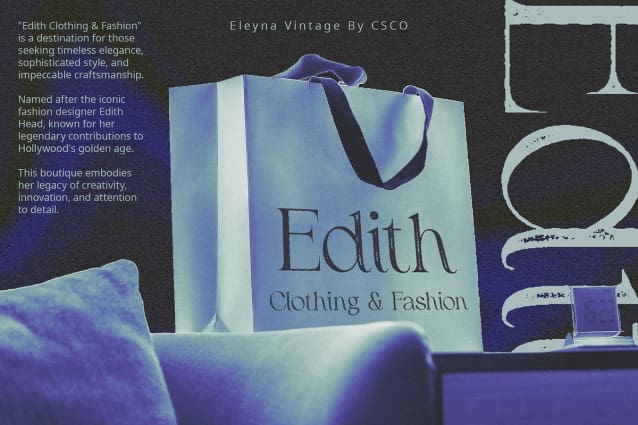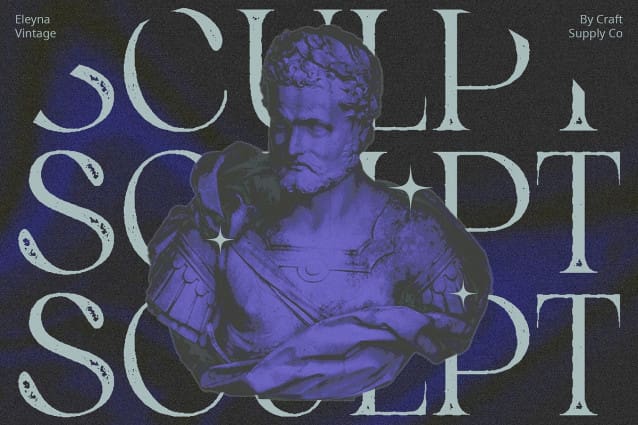
Eleyna Vintage Font
Eleyna Vintage Font: Embodying Vintage Elegance. Translational Diagonal Axis Design Eleyna Vintage features a unique translational diagonal axis design, adding a distinctive touch to each character. This design element infuses the font with dynamism and elegance.
Rough Stamp Drawn Effect The font boasts a rough stamp drawn effect, evoking a sense of nostalgia and authenticity reminiscent of vintage craftsmanship. Each character exudes character and charm with its weathered appearance.
Vintage Aesthetic With its translational diagonal axis design and rough stamp drawn effect, This font effortlessly captures the vintage aesthetic. It brings to mind the elegance and sophistication of bygone eras, making it perfect for vintage-themed designs.
Versatile Application Despite its vintage-inspired design, This font is versatile in its application. From branding and editorial design to packaging and signage, it adds a touch of vintage elegance to any project.
Timeless Elegance with a Vintage Twist This font combines a unique translational diagonal axis design with a rough stamp drawn effect to create a font that exudes vintage elegance. Its versatility makes it suitable for various design projects, while its vintage aesthetic adds a touch of timeless charm to any composition. Step into the past with Eleyna Vintage and infuse your designs with vintage sophistication.